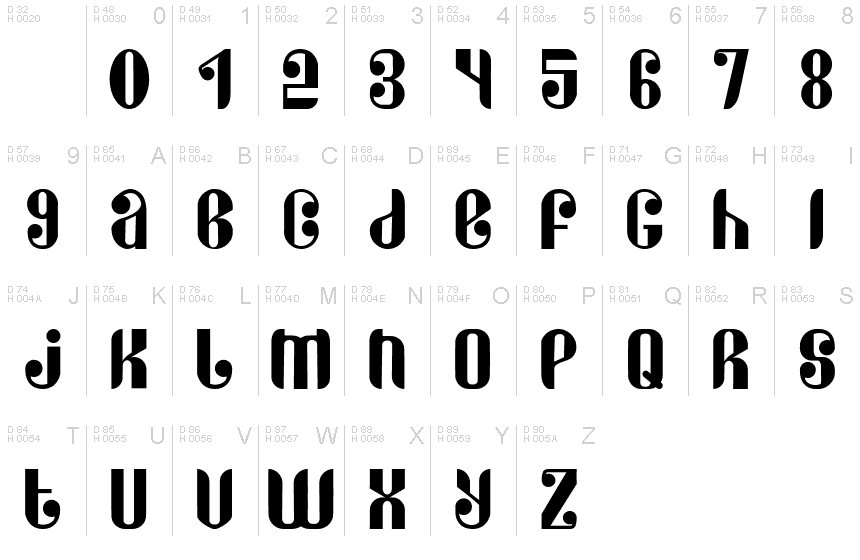
Lucindi Regular
Lucindi font is a retro typeface designed by Lucía Mora.
Lucindi is a free type made from my sketches.
For designers, I sujest for typography-logo design.
Lucindi is a free type made from my sketches.
For designers, I sujest for typography-logo design.